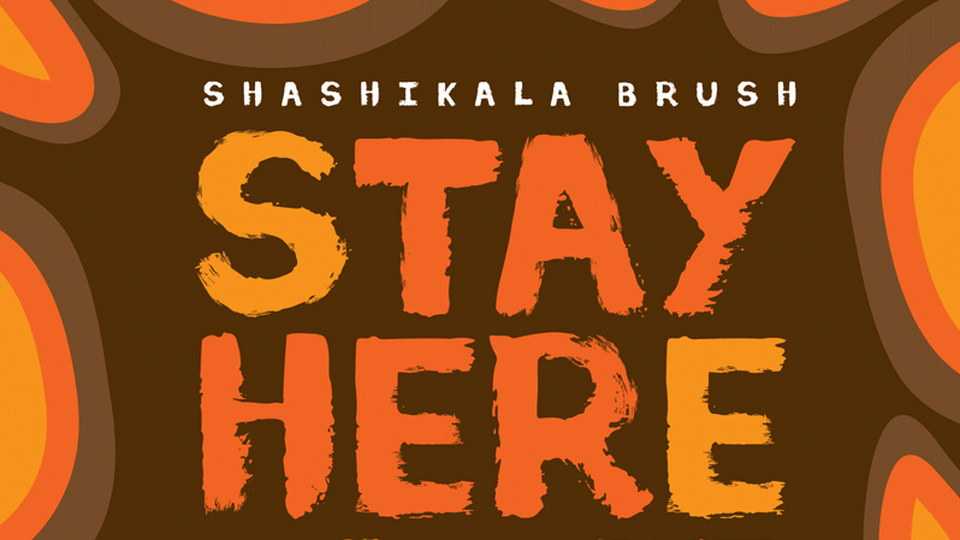
Download Shashikala Brush font, a bold brush typeface with a rough texture. Great for realistic grunge designs, posters, t-shirt prints and more.
Designer: Vanburn Gonsalves